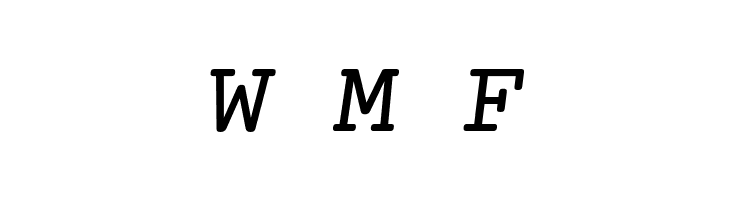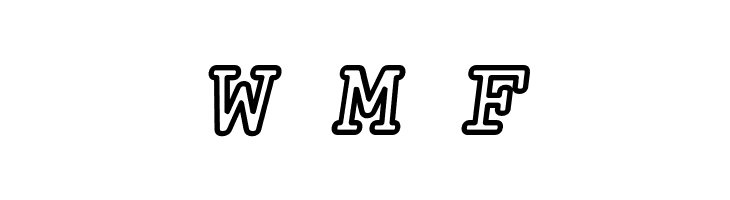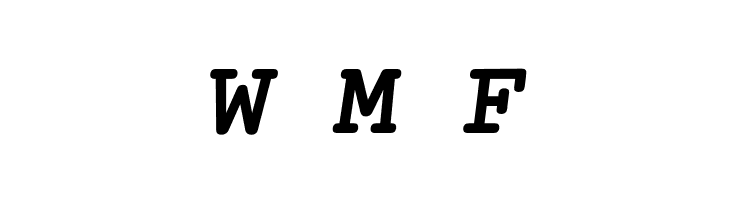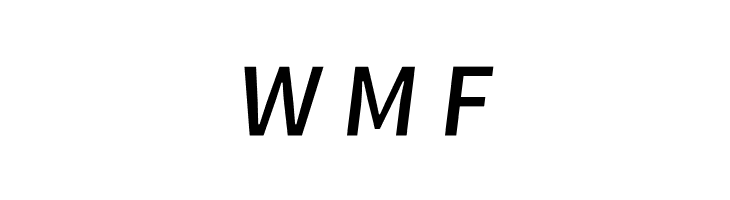
A modern, oblique font with a mechanical style and consistent stroke width.
A bold, outlined, oblique font with a mechanical and industrial style.
A bold, oblique serif font with a mechanical and dynamic style.
A bold, extended, and oblique font with a mechanical precision and modern appeal.
A bold, condensed, and oblique font with a modern mechanical style.
A modern, oblique sans-serif font with clean lines and balanced spacing.
A modern, semi-bold oblique sans-serif font with a dynamic and clean appearance.
A bold, oblique sans-serif font with a modern and dynamic style.
A modern, medium-weight oblique sans-serif font with a dynamic style.
A bold, oblique font with a modern and dynamic style.